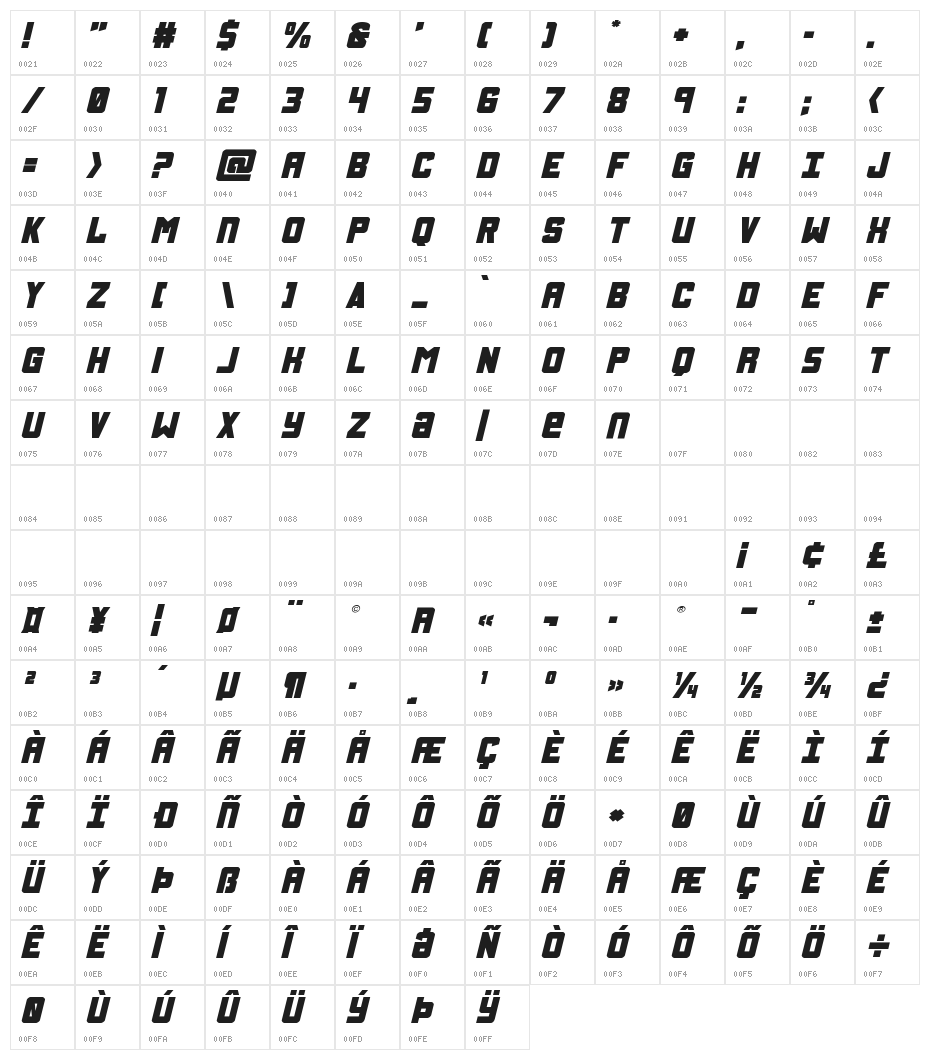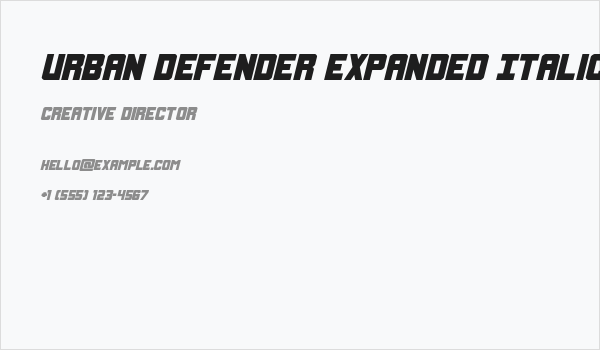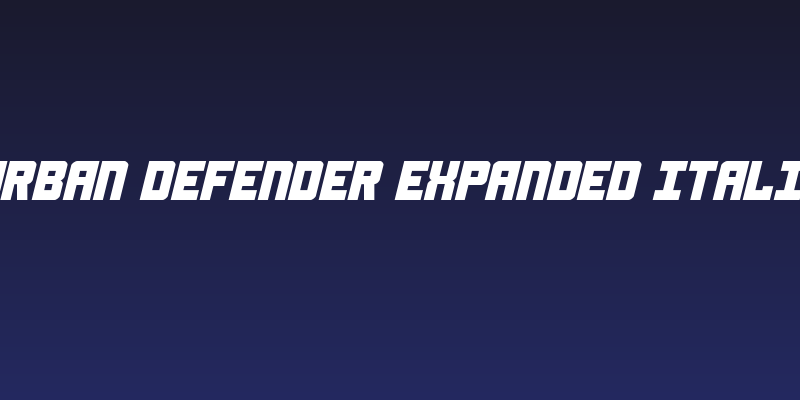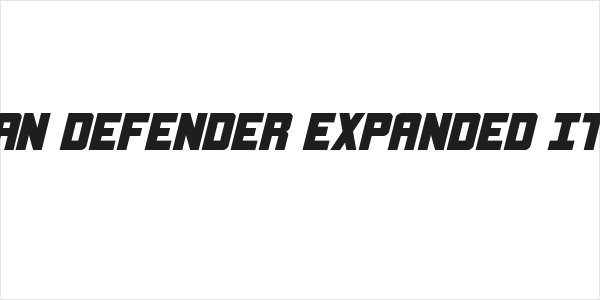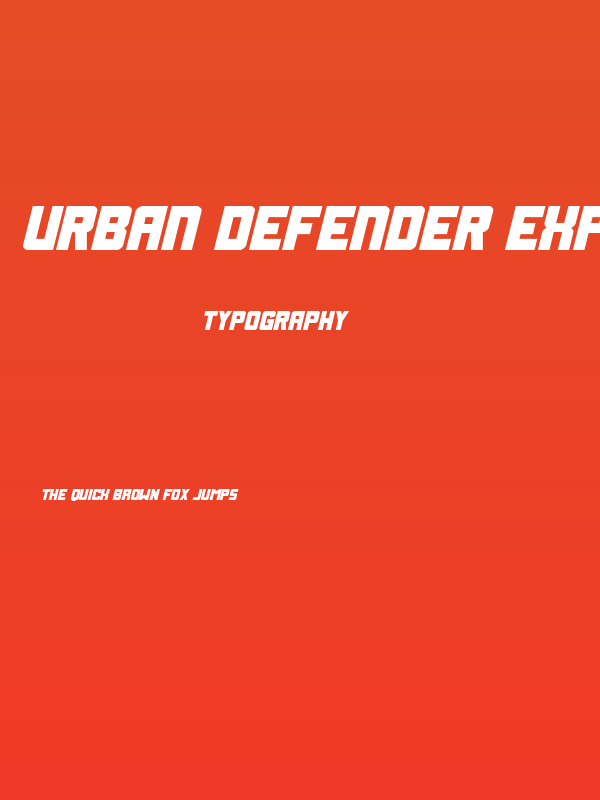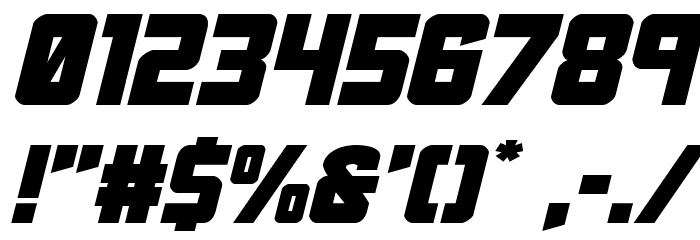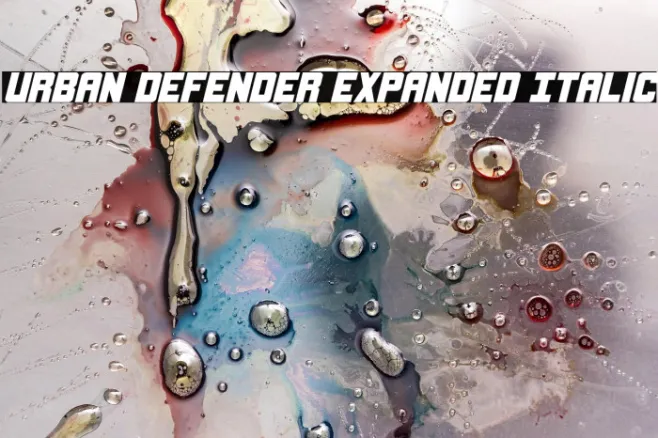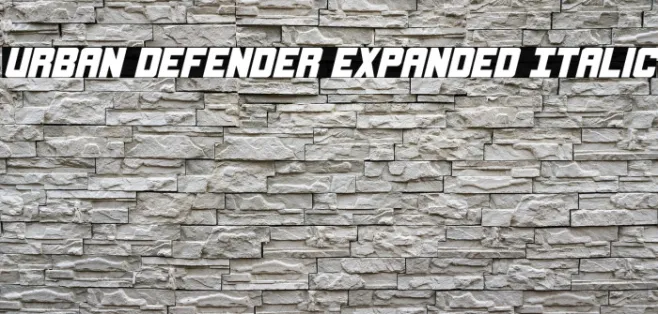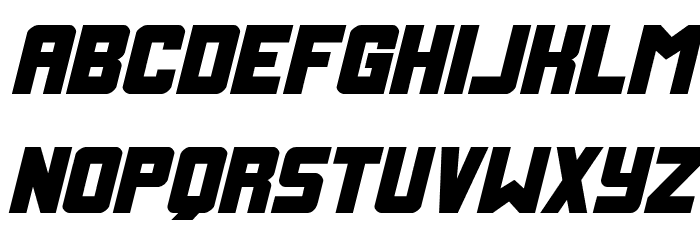
Urban Defender Expanded Italic Font
Urban Defender Expanded Italic Description
This font features a bold, italicized style with an expanded width, giving it a strong and dynamic presence. The characters are designed with sharp angles and a futuristic aesthetic, making it ideal for projects that require a modern and edgy look. The uppercase and lowercase letters maintain a consistent style, with a slight slant that adds to the font's energetic feel. The numbers and special characters are equally bold and well-defined, ensuring readability and impact. This font's unique design is perfect for capturing attention and conveying a sense of strength and innovation.
URBAN-DEFENDER-EXPANDED-ITALIC UPPERCASE
URBAN-DEFENDER-EXPANDED-ITALIC LOWERCASE
URBAN-DEFENDER-EXPANDED-ITALIC OTHER CHARS